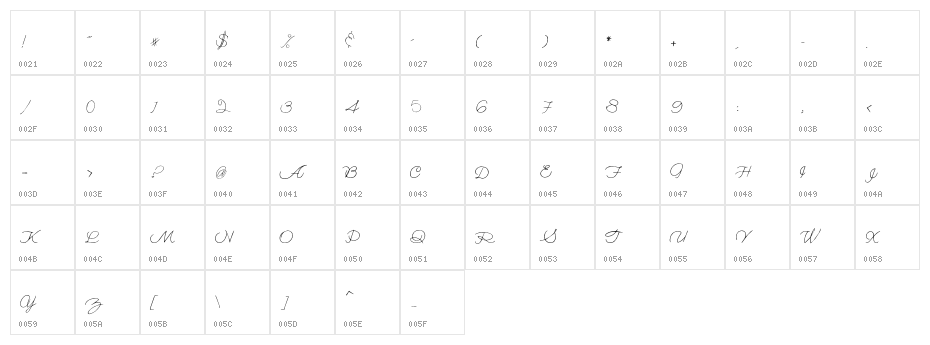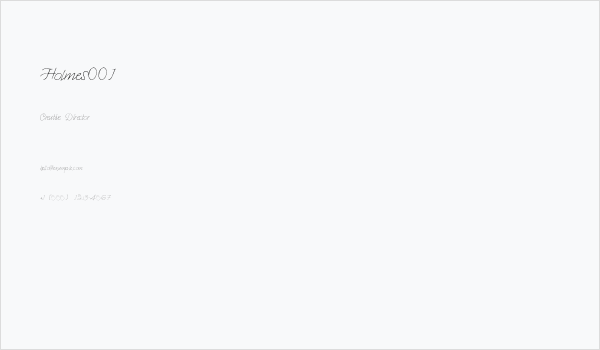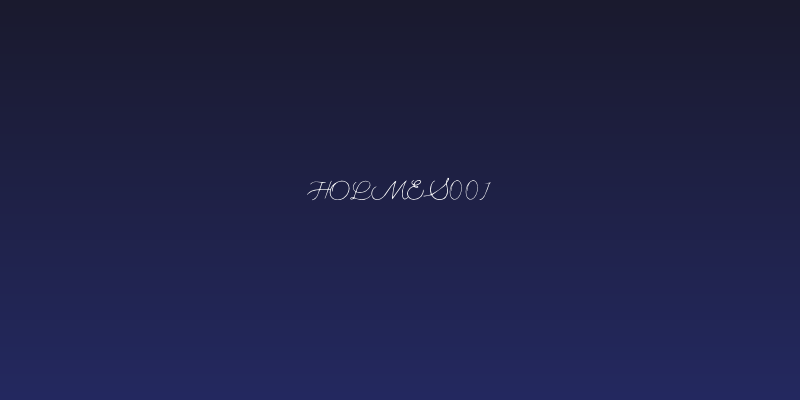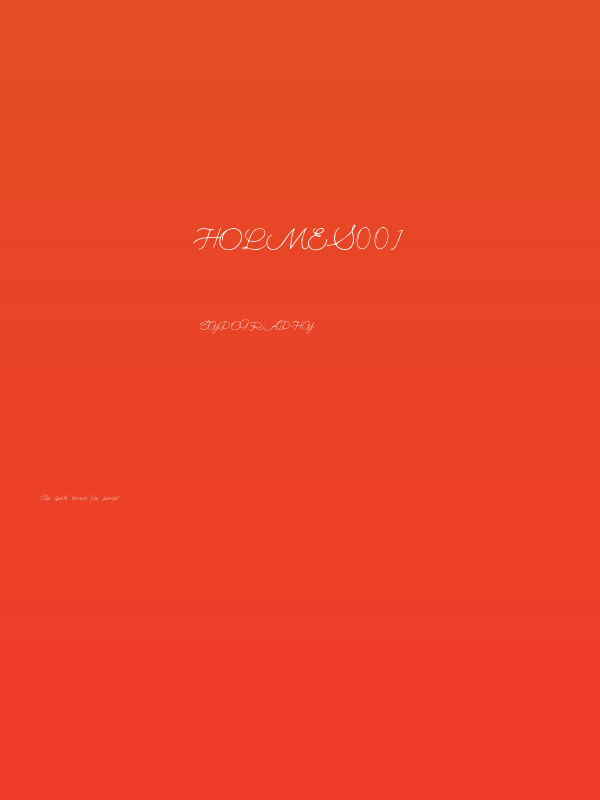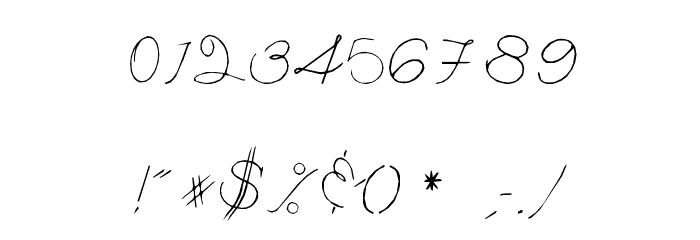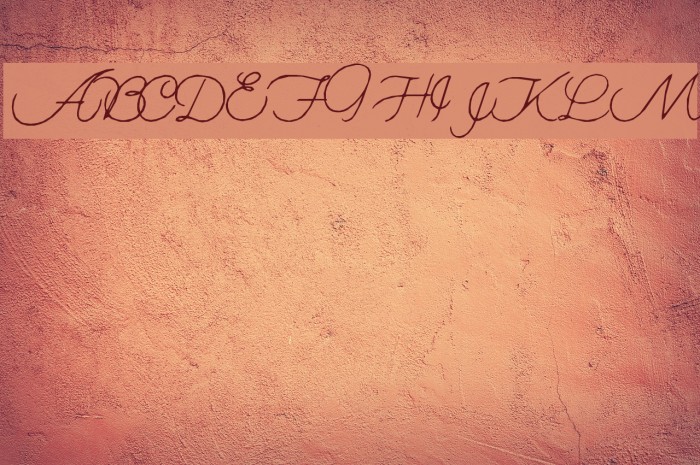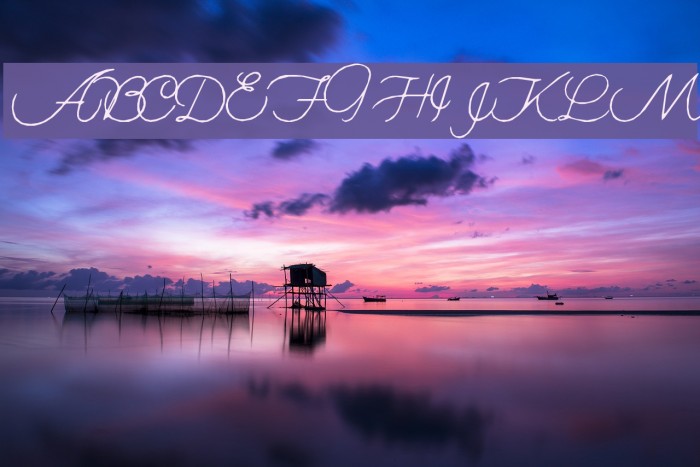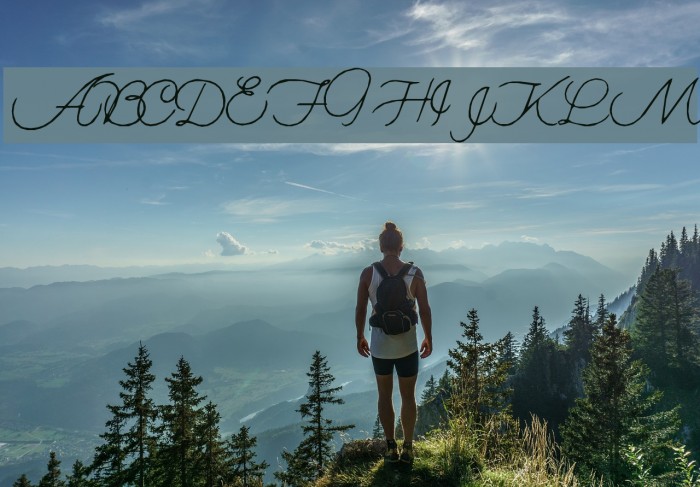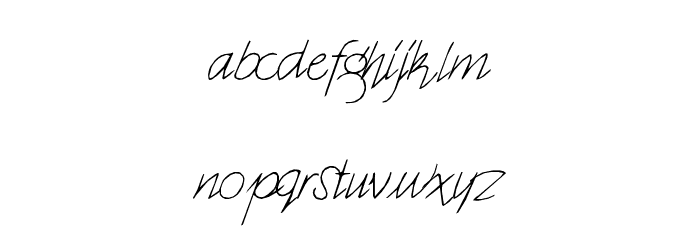
Holmes001 Font
Holmes001 Description
This elegant script font features flowing, interconnected letters with a calligraphic style that exudes sophistication and grace. The uppercase letters are ornate, with sweeping curves and flourishes that give a sense of movement and fluidity. The lowercase letters maintain a consistent style, with smooth transitions and a slightly slanted orientation, enhancing the cursive appearance. The numerals and special characters are designed to match the overall aesthetic, ensuring a cohesive look across all text elements. The font's delicate strokes and high contrast between thick and thin lines contribute to its refined and decorative nature, making it ideal for formal and elegant design projects.
HOLMES001 UPPERCASE
HOLMES001 LOWERCASE
HOLMES001 OTHER CHARS